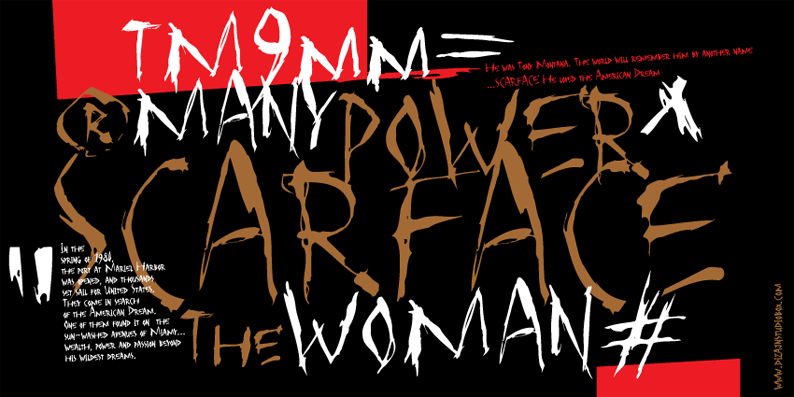
SCARFACE is expresiv brush decorative font which was made in June 2010 for needs inagreement of short texts and captions. It will be my pleasure to share it for you! Enjoy! author, Lazar Dimitrijevic. |